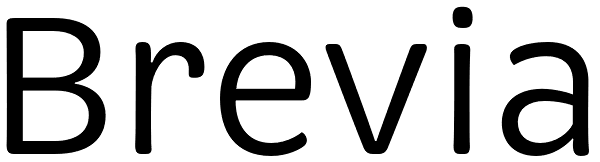
Brevia
Type designer Hannes von Döhren created Brevia, a soft sans serif type family consisting of seven weights plus matching italics. The fonts have a hint of a brushed feeling and come across as casual and friendly. Nevertheless Brevia’s architecture is...